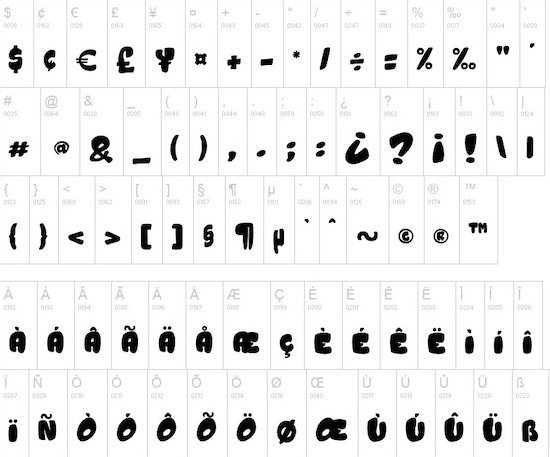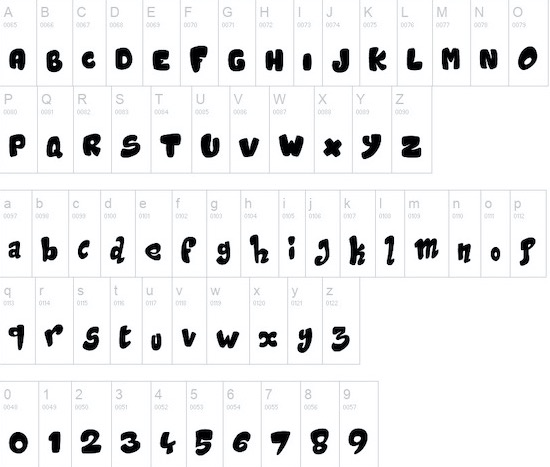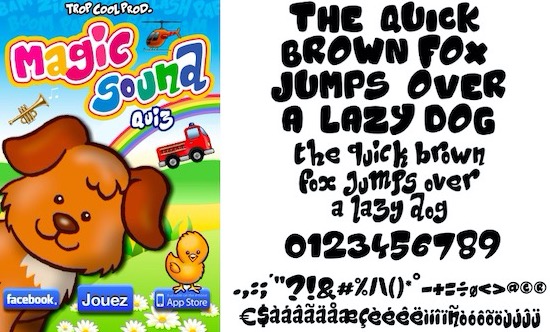
Magic Sound is a chic handcrafted cartoon font that was published by Imagex. This display typeface is created to impress your audience and make your logo alive. Use it for printed quotes, logos, packaging, headings, ads, and more.
Name: Magic Sound
Designed, Published by: Imagex